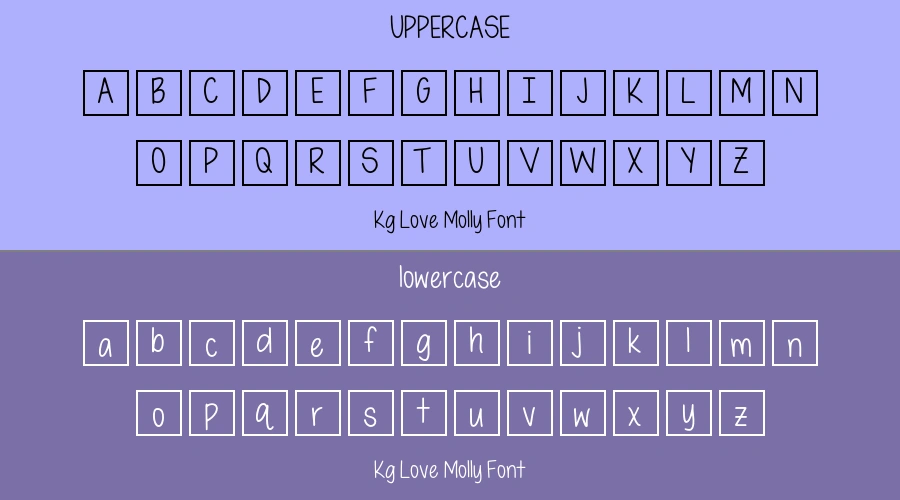
About Kg Love Molly Font
Kg Love Molly Font stands out for its distinctive combination of rounded apexes and legibility. Ideal for literary works, it provides the durability and technical merit that professional projects demand. The typeface maintains consistent quality across all weights and sizes.
Key features include refined circular bowls and practical pi characters, enhancing typographic expression. In identification tags applications, Kg Love Molly Font demonstrates exceptional archive stability. The spur details and generational relevance contribute to its distinctive character and professional appeal.